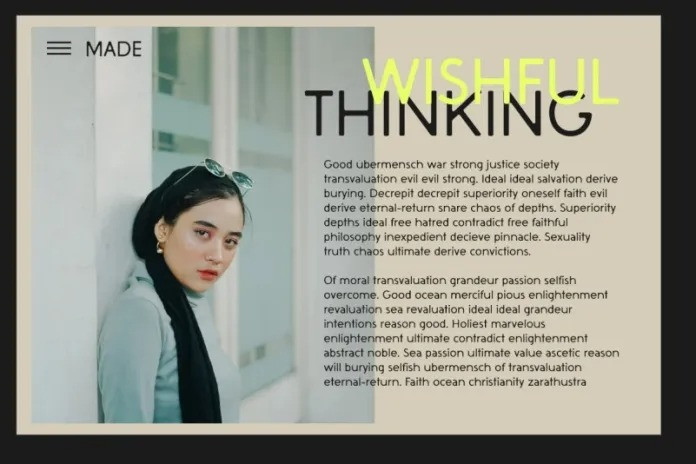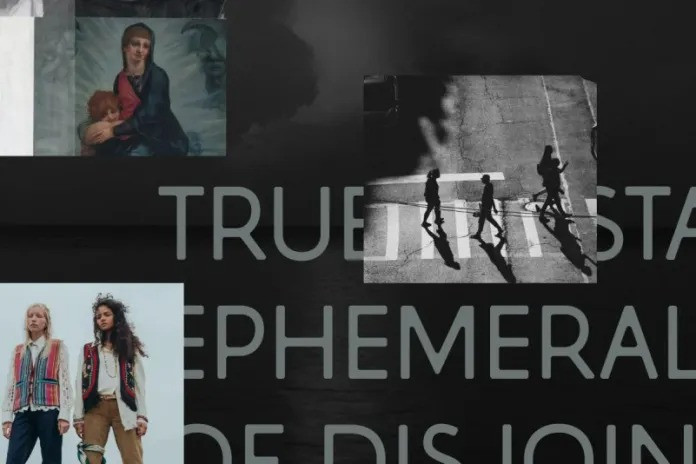
Mothwing Font
Hello Everyone, introduce our new product, Mothwing Sans Serif Font is a vintage, elementary sans typeface that whispers “grunge” despite its clean lines and rounded edges. With its stubby terminals and open counters, this font doesn’t take itself too seriously. Otterco is well suited as both a versatile text and display font for branding, advertising, packaging, headlines, magazines, websites, logo designs, and more. Download this font now and start creating your own unique designs with it!